Japanese Yakumono (Punctuation Marks and Symbols) 02: “Macron and Iteration Mark”
Here, we discuss the macron and iteration mark.
Although the macron (“ー”) looks like a simple straight line, it must be designed in accordance with each font. As there are differences in creation between usage for vertical typesetting and horizontal typesetting, the shape is not just rotated, but the shape of the beginning and ending of the brushstroke are changed, the line angle is adjusted, and detailed adjustments are added to give uniformity to the thickness. For creation of a macron, I often want to start with it after deciding the kana design, but when I want to typeset words when creating katakana, there are many words that include a prolonged sound, so I want to have a macron at an early stage.
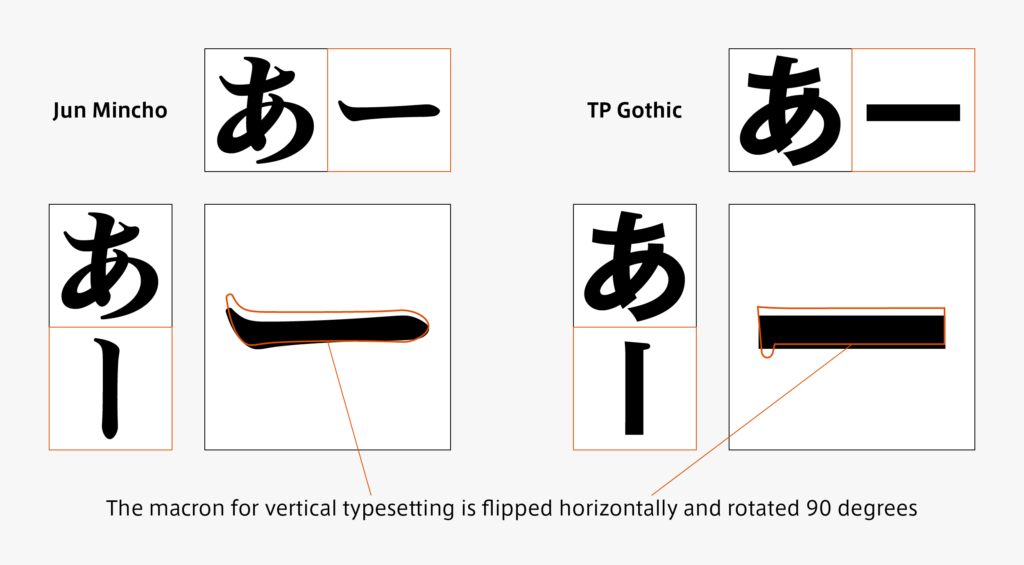
An iteration mark is a generic term for a yakumono that indicates repetition of the same characters, such as “ゝ, 々, 〃,” etc. “ゝ” is called “ichinojiten” and “々” is called “nomaten” – each iteration mark has a name. Looking at “々” in Mincho typeface, there are two types of parts: those that look like kanji and others that look like kana.
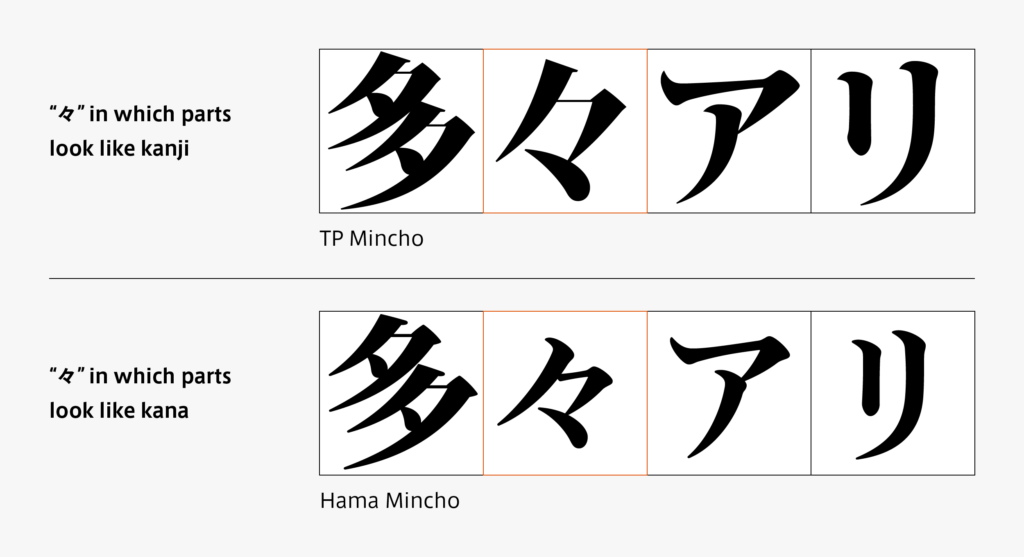
Similarly, “〃” (nonojiten) is an iteration mark in which the design is divided. There are two types of parts: those that look like kana and others that look like graphics – the difference can be seen in sans-serif typeface and Gothic typeface.